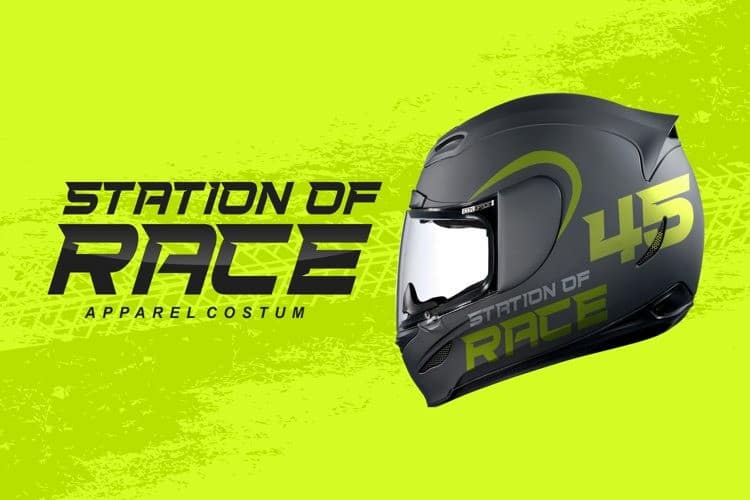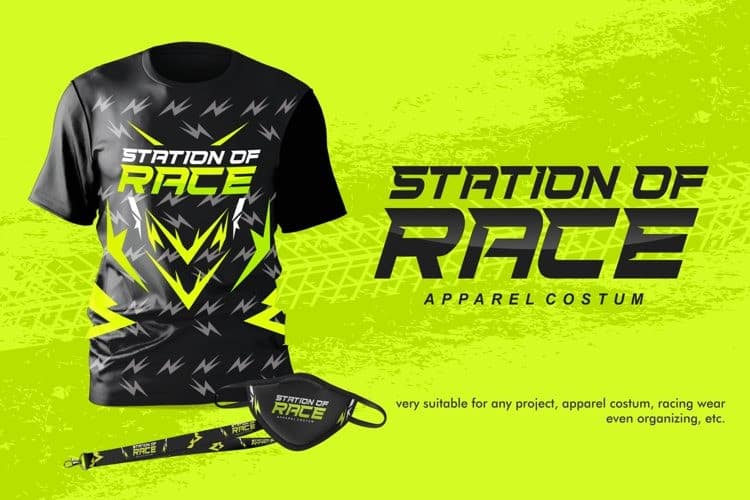
Introducing Station Of Race Display Font is a bold sport display typeface, geometrical font in square shapes with modern spurs, uppercase and lowercase, accented, additional characters ligatures and stylistic alternates, numbers and punctuations, currency and other symbols. The unique characteristics of Station of Race make it very suitable for various purposes such as quotes, t-shirt designs, flyers, youtube channels, labels, logos, branding, apparel costum etc.